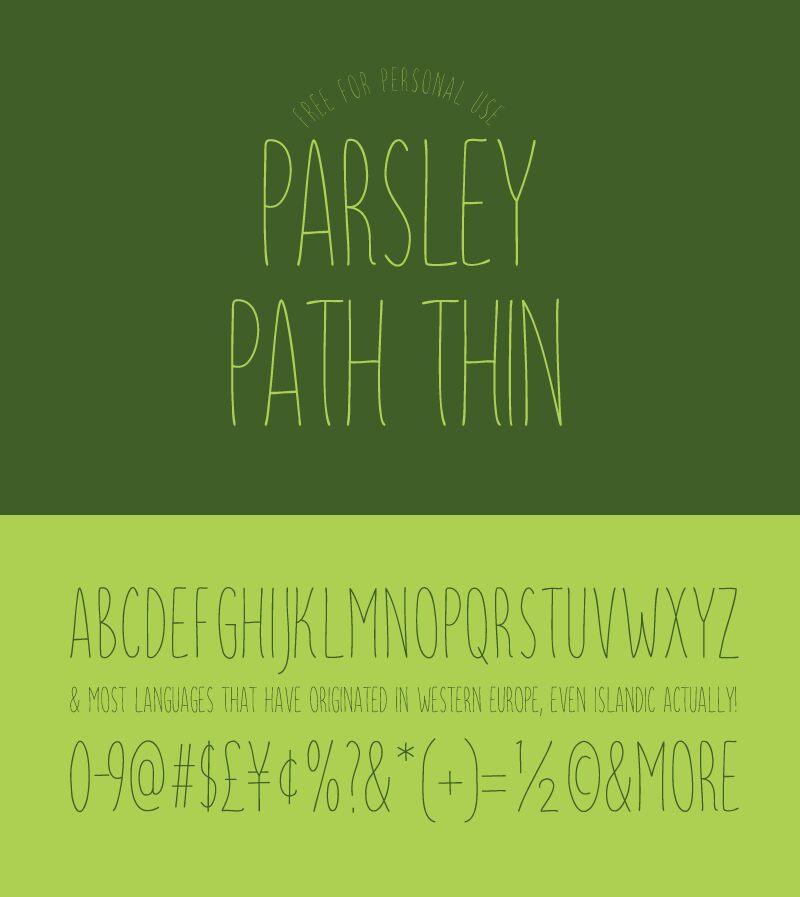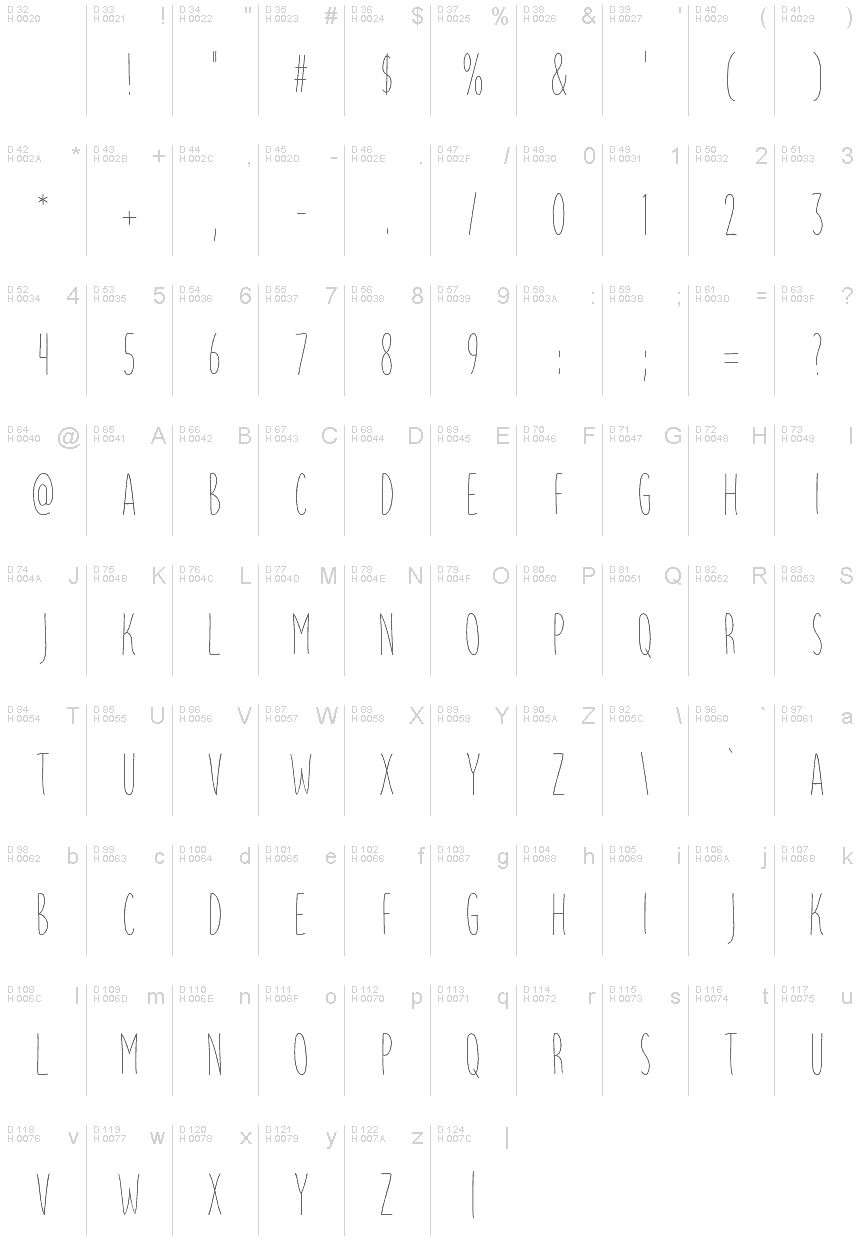
ParsleyPath-Thin
Parsley Path Thin, crafted by font designer HENRIavecunK, is a truly unique and captivating typeface that effortlessly blends elegance with creativity. With its handwritten style, this font brings a touch of authenticity to any project it graces. The ultra-light weight of Parsley Path Thin adds an ethereal quality, giving your designs a delicate and refined aesthetic. Its extra-condensed width allows for maximum versatility, seamlessly fitting into various design layouts while still maintaining its distinct personality.
Whether you're designing elegant wedding invitations or creating eye-catching logos, Parsley Path Thin is the perfect choice. Its graceful curves and intricate details make it ideal for projects that require a sophisticated and artistic touch. From branding to digital art, this font shines in every creative endeavor.
Unlock the full potential of your designs with Parsley Path Thin and let its distinctive charm elevate your creations to new heights.
Parsely Path is a nice condensed handwritten typeface for logos, invitations, menus or anything you want.
The font supports at least english, french, spanish, german, portuguese, swedish, danish, finish and even islandic.
Parsley Path Thin is a font designed by HENRIavecunK in 2016.